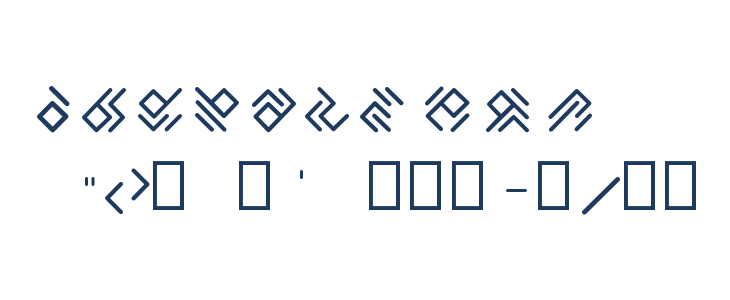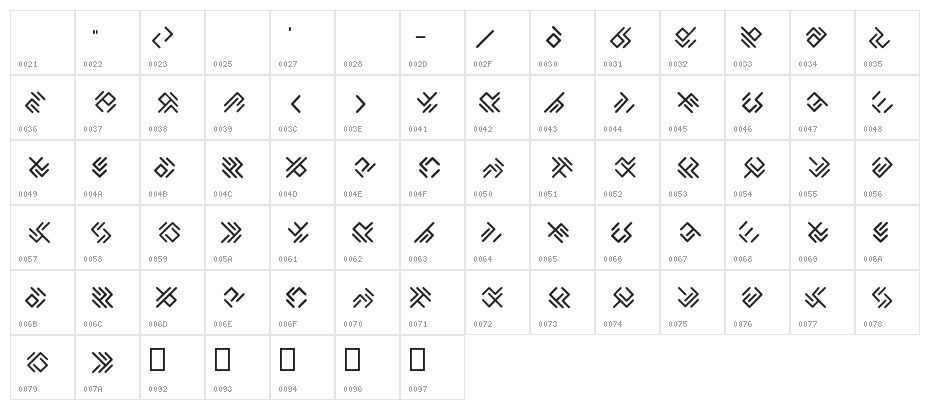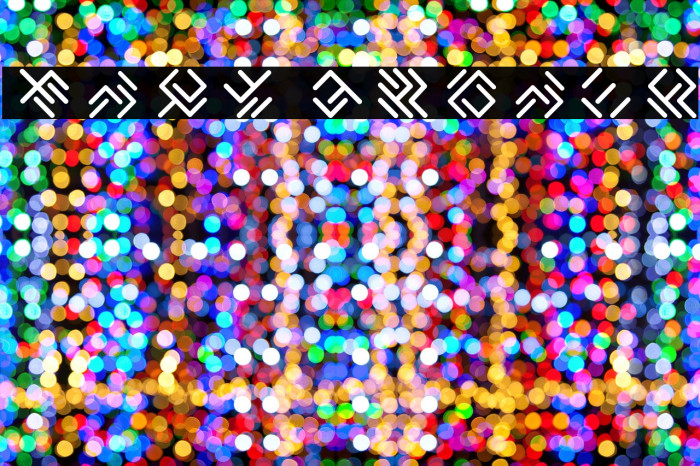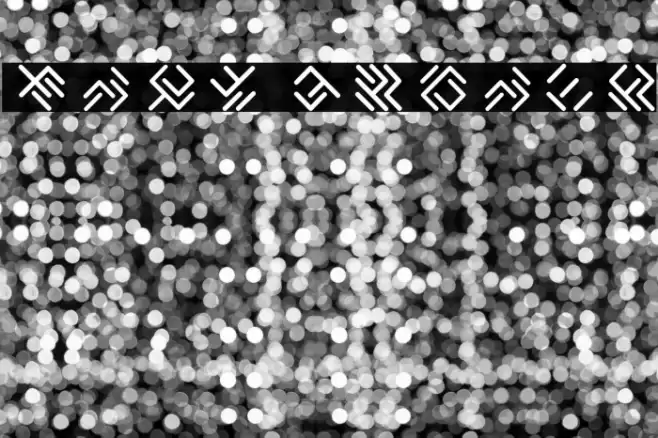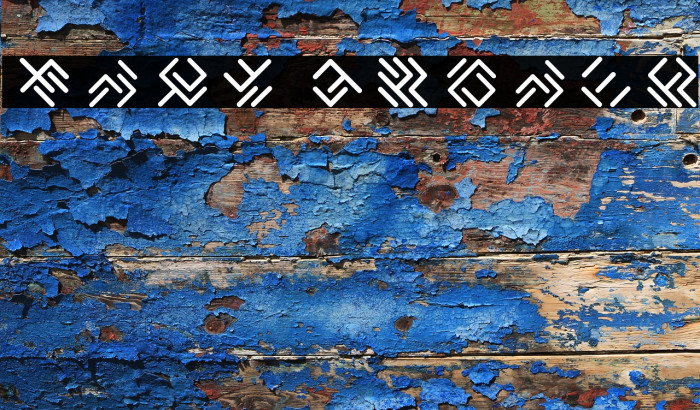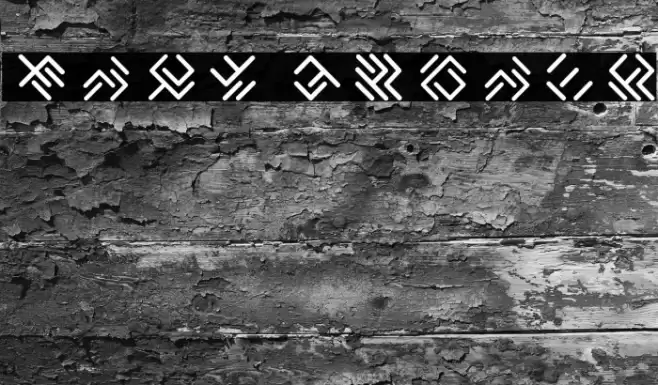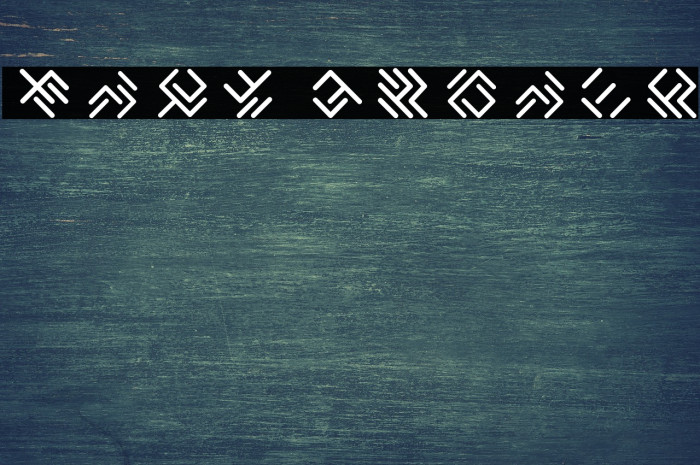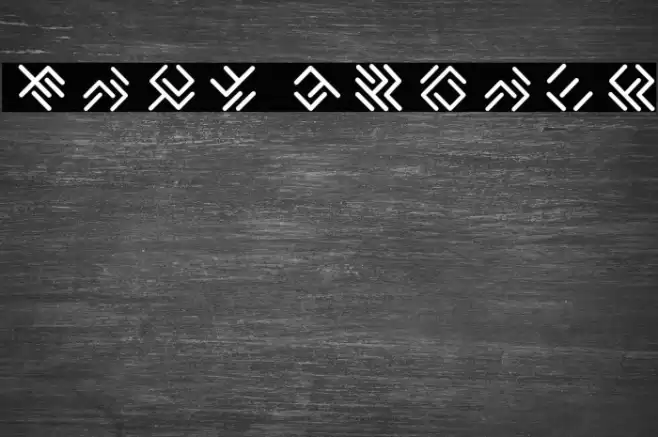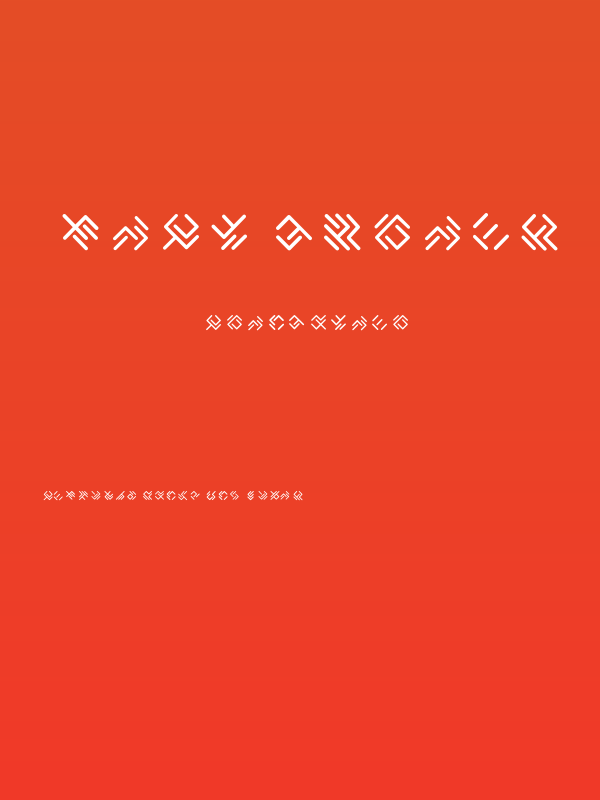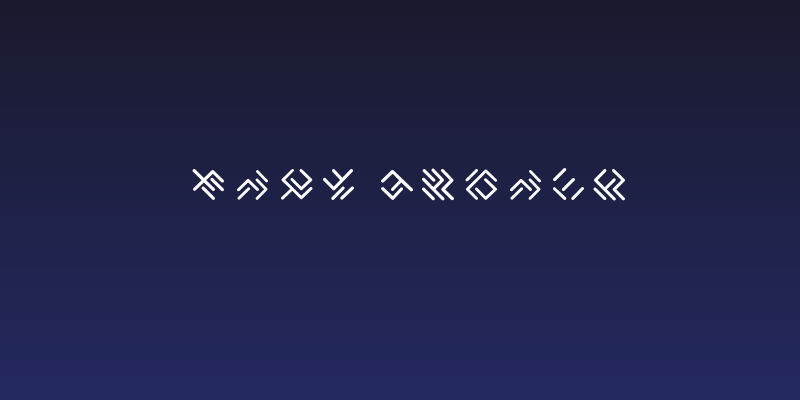
EPTA GLYPHS Font
EPTA GLYPHS Description
This font features a unique set of glyphs that resemble abstract geometric shapes. Each character is composed of angular lines and sharp edges, creating a futuristic and cryptic appearance. The design is highly stylized, with a consistent pattern of intersecting lines and angles, giving it a distinct and cohesive look. The characters are evenly spaced, maintaining a balanced visual rhythm across the text. This font does not follow traditional alphabetic forms, making it more suitable for decorative or artistic purposes rather than readability.
| Overall Style | Futuristic, Abstract |
| Use Case | Logos, Digital Art, Decorative Elements |
| Proposed Projects | Ideal for creating logos, digital art, or sci-fi themed projects where a futuristic and cryptic aesthetic is desired. |